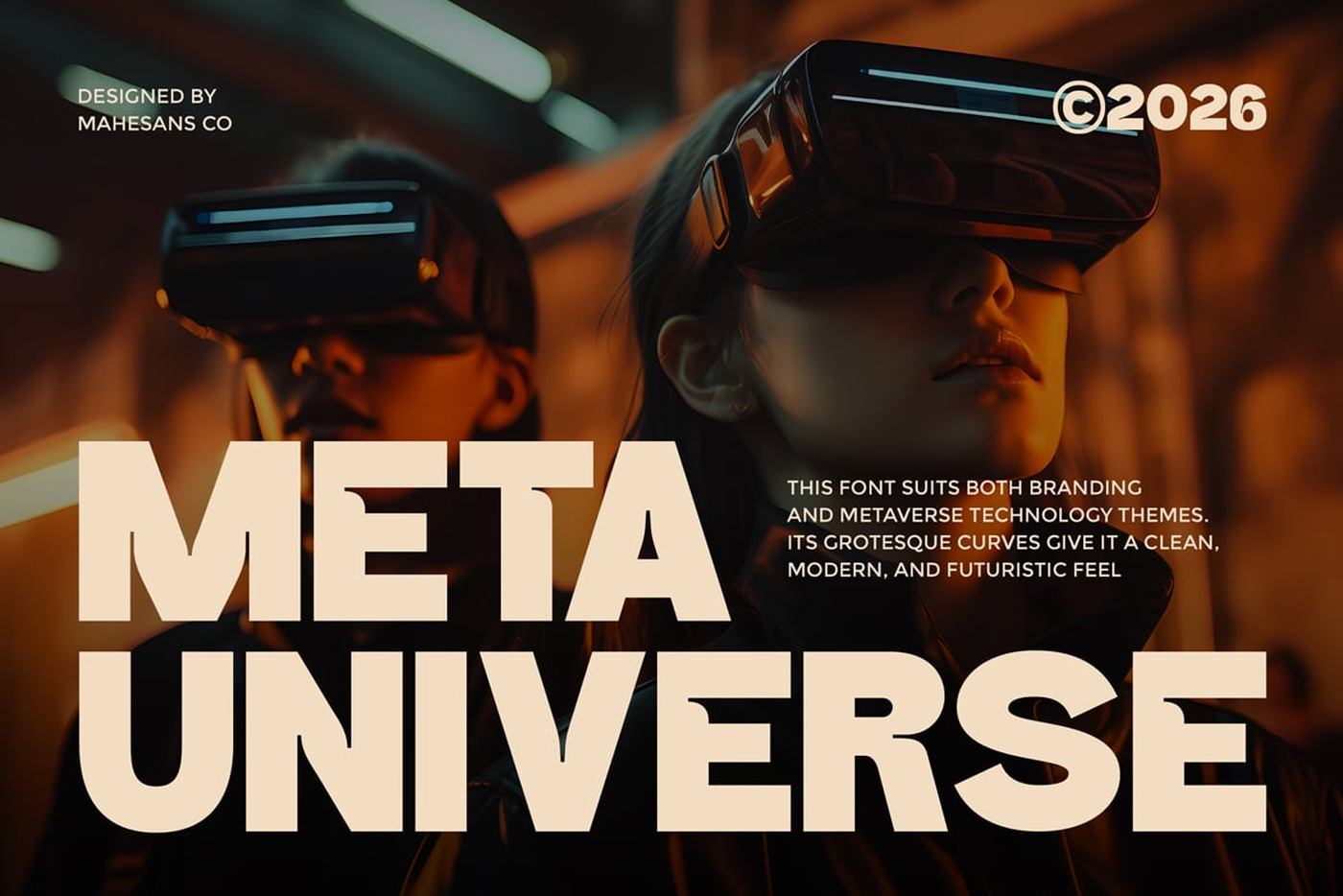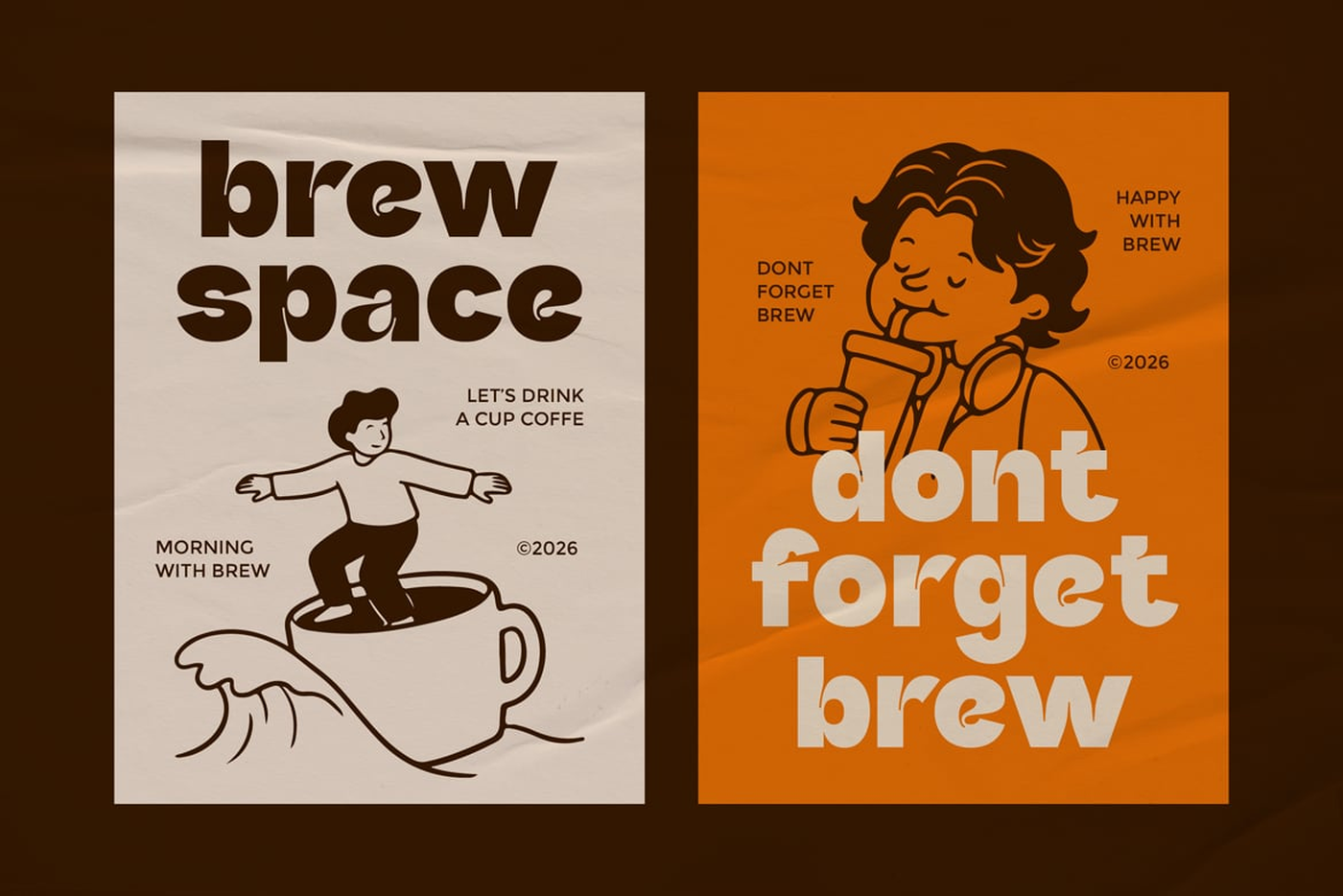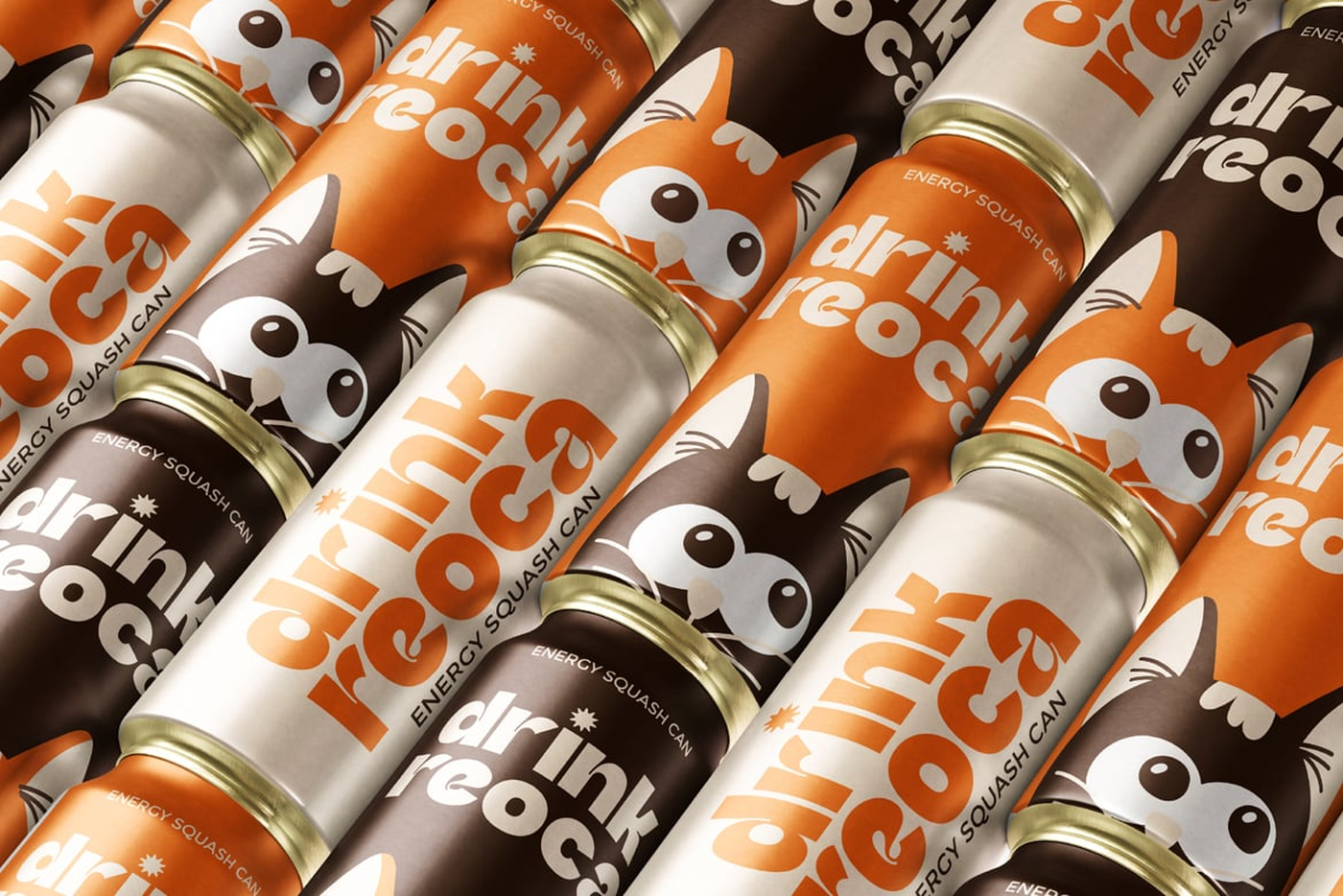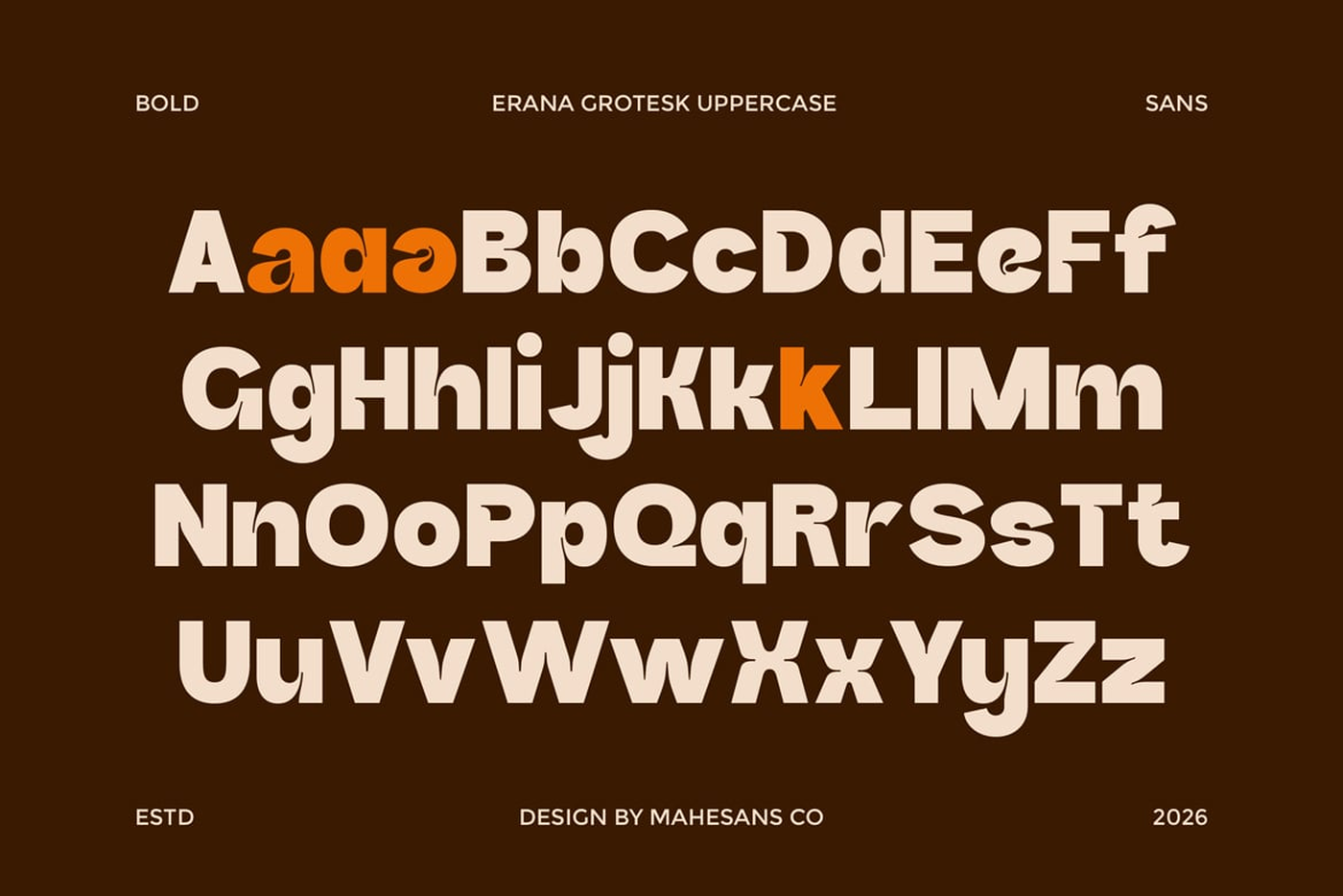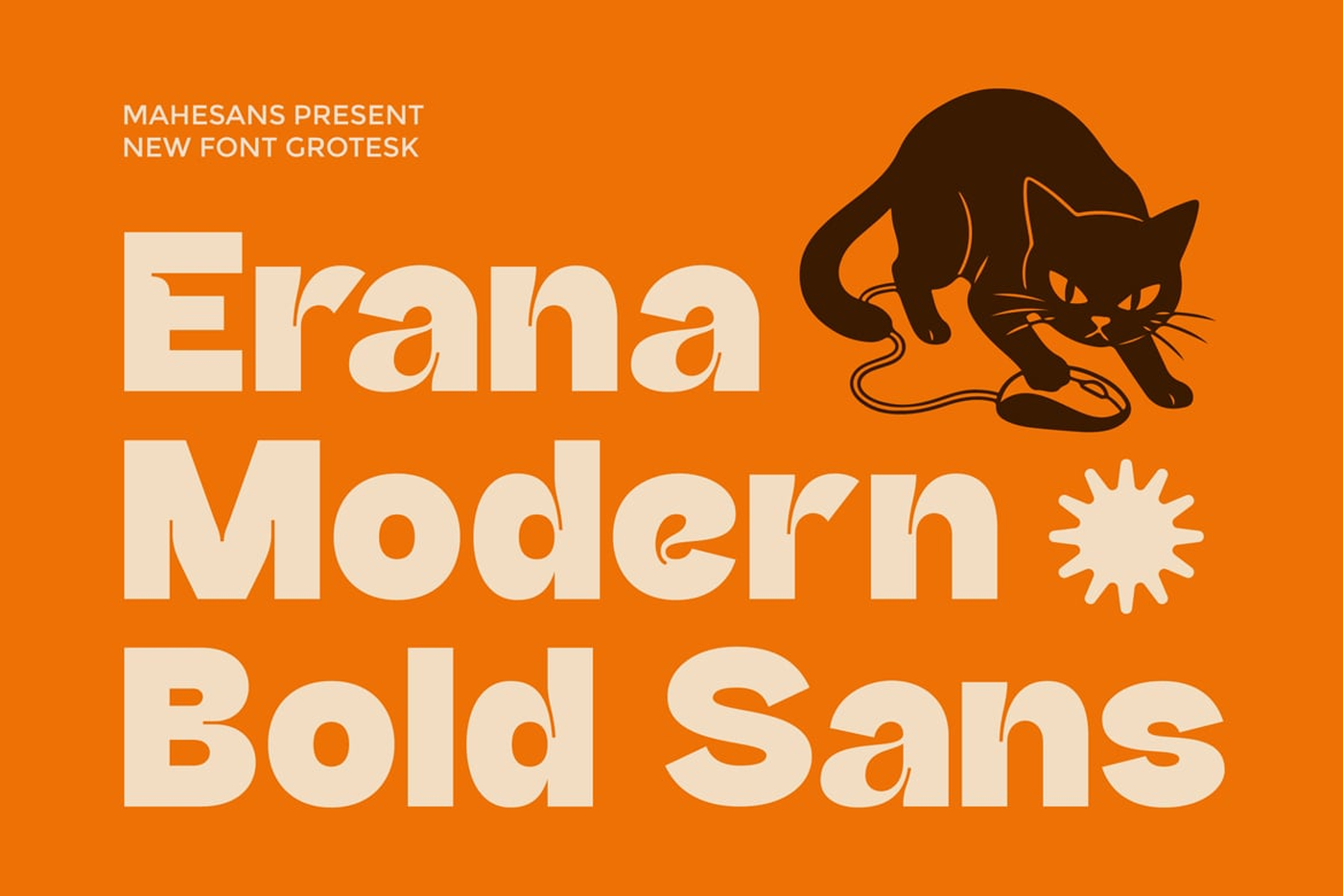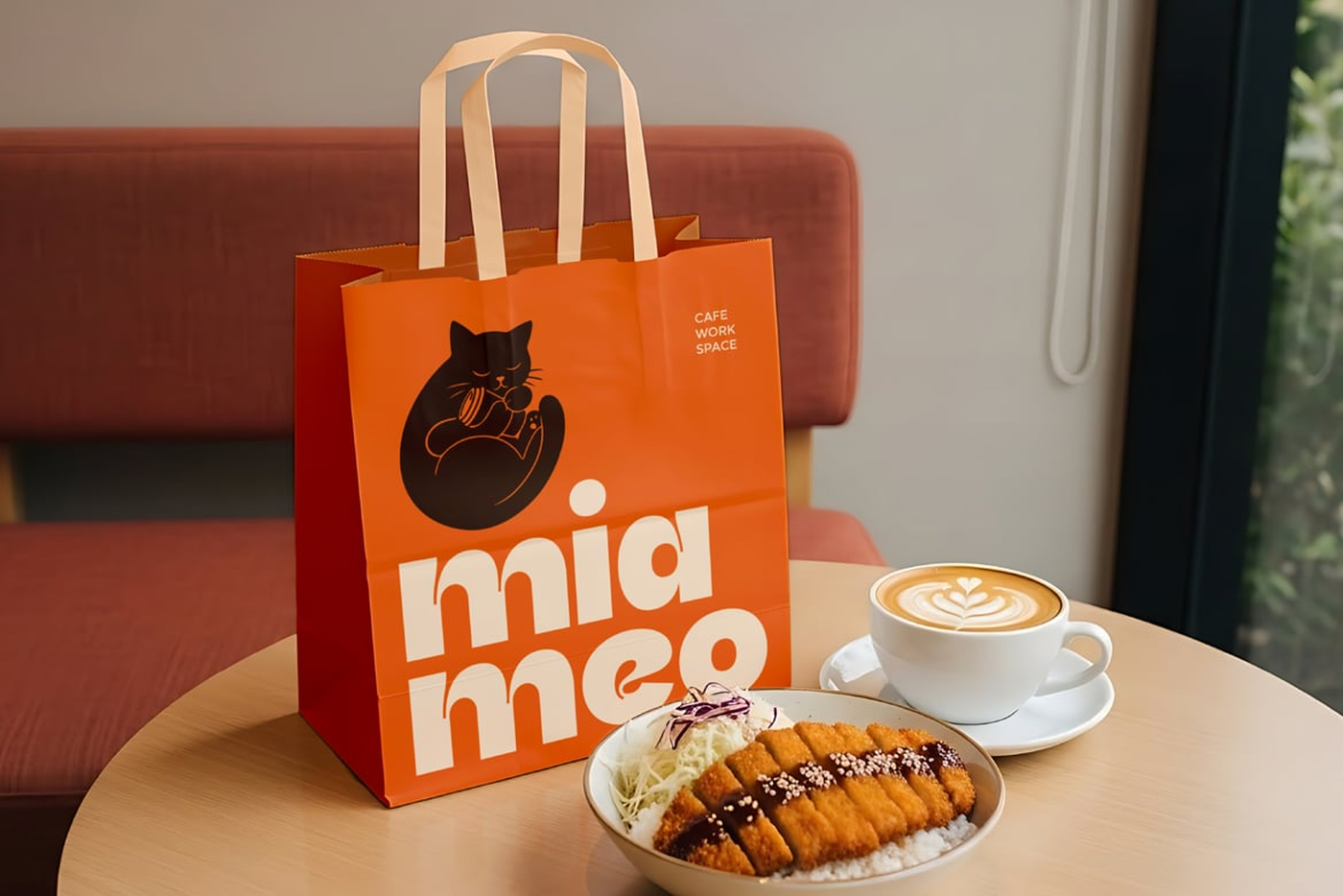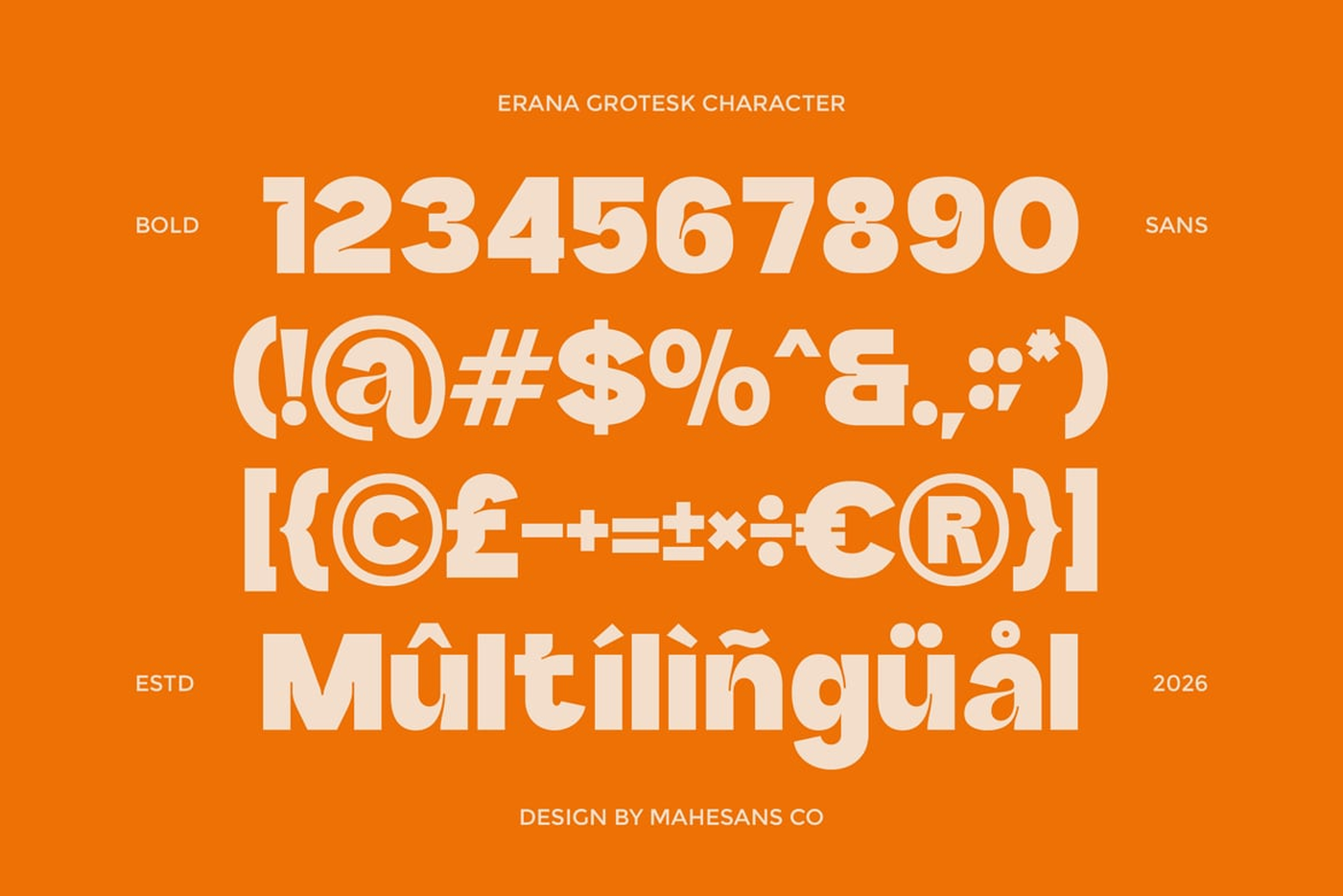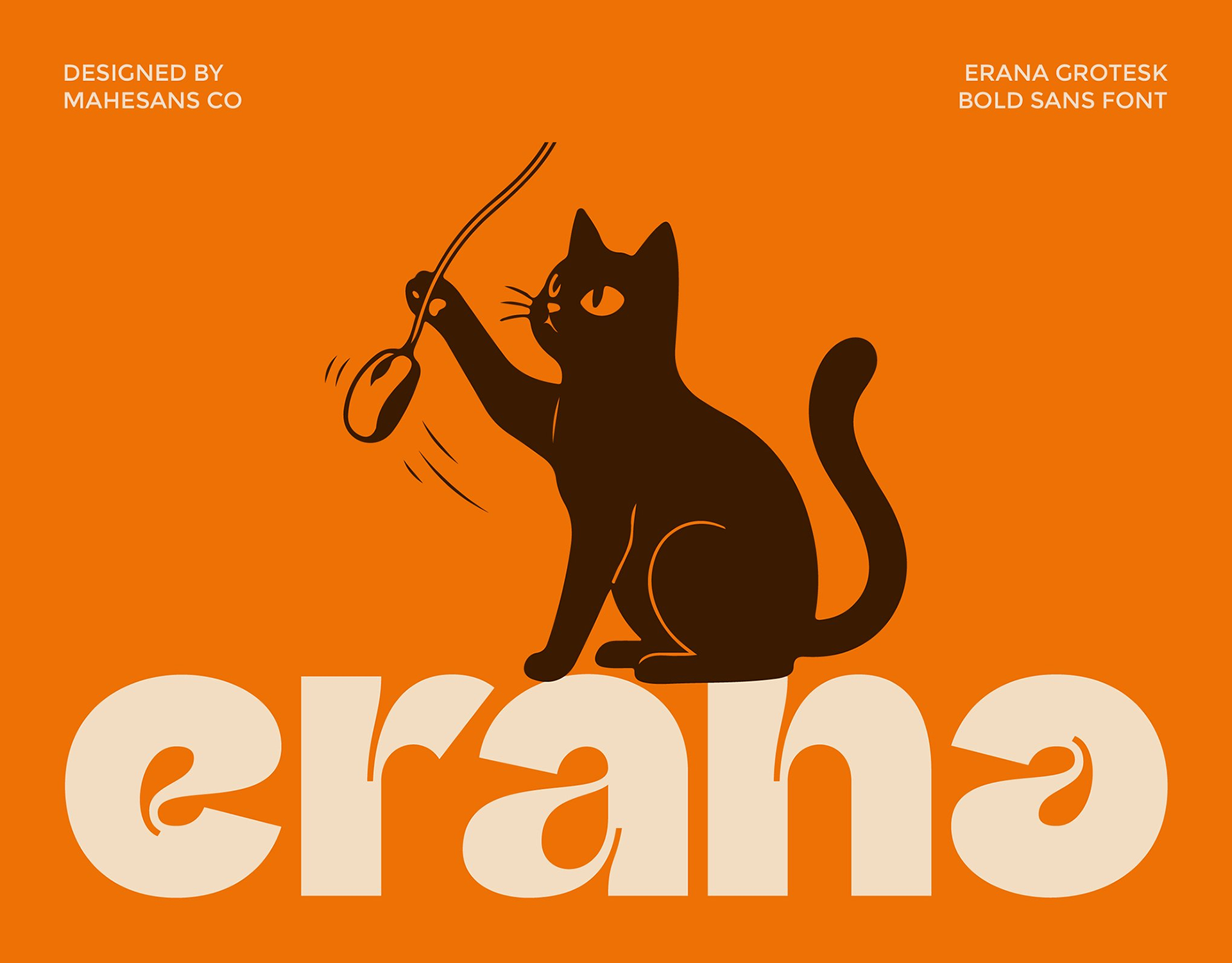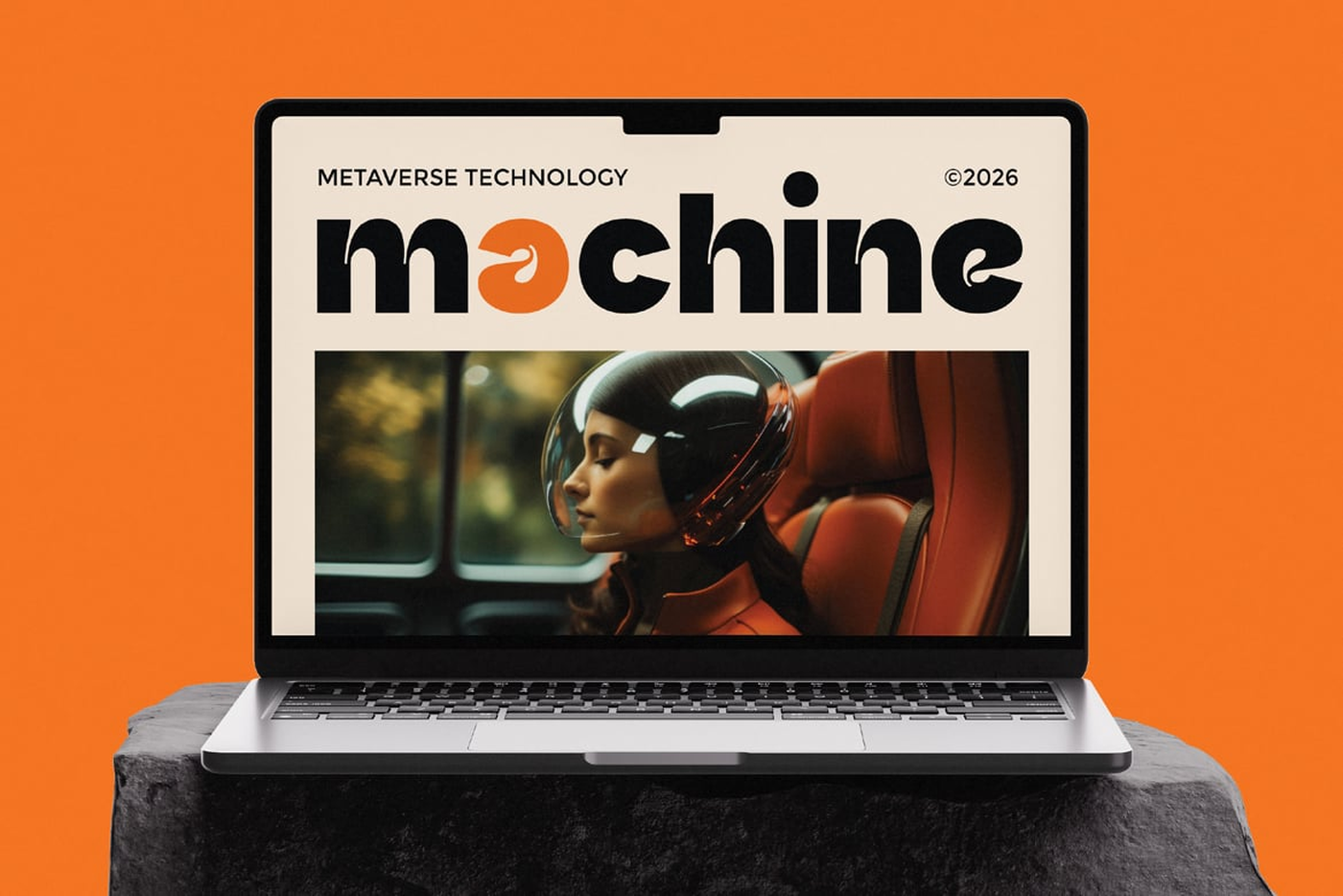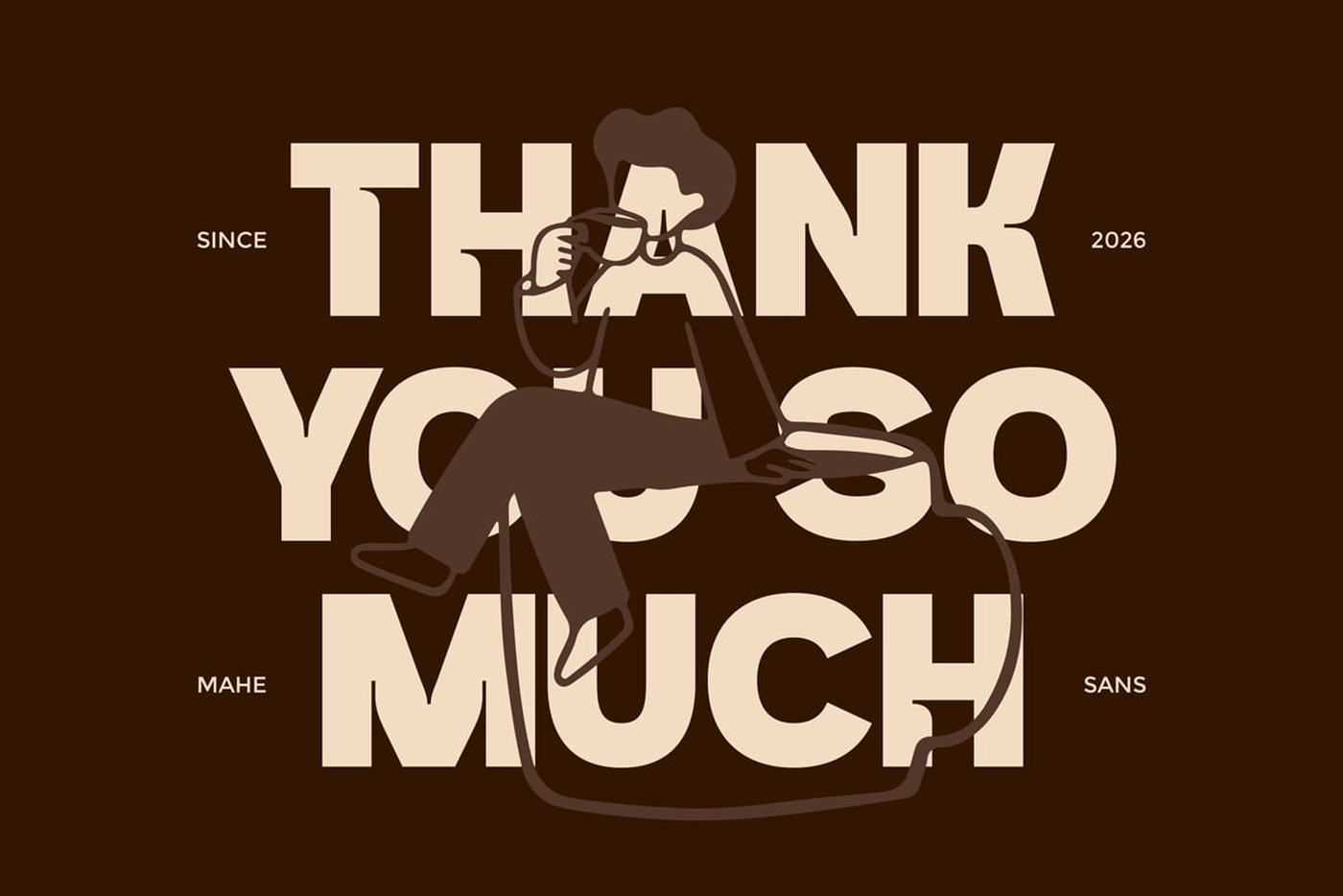
Erana Grotesk - Retro Bold Sans Serif Font
Erana is a bold retro-inspired sans serif font designed to bring strong personality and playful character to your designs. With its chunky shapes, smooth curves, and distinctive letterforms, this font delivers a perfect balance between modern grotesk structure and vintage charm. Erana Grotesk works beautifully for bold headlines and eye-catching branding. The thick strokes and unique details give every word a strong visual presence while keeping the text highly readable.